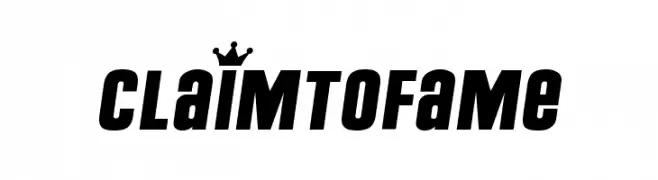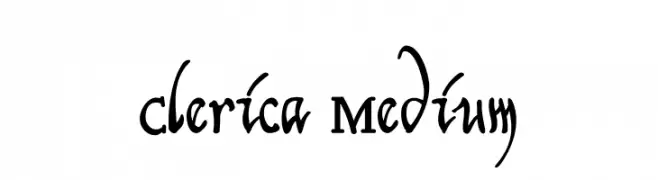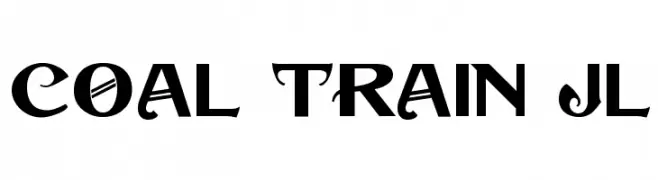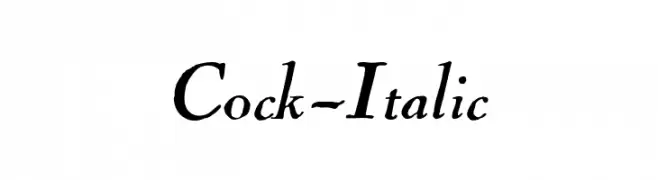
( Fonts by Manfred Klein - manfred-klein.ina-mar.com )
A collection of decorative illustrations inspired by classical art and mythology.
( Paul Lloyd Fonts )
A decorative serif font with calligraphic flourishes and artistic lowercase letters.
Illustrative display font featuring climbers and mountaineering scenes.
( Fonts by Jeff Levine. FREEWARE )
A bold, decorative font with artistic flourishes and playful twists.
A classic serif font with elegant, sharp serifs and a vintage touch.
A bold, classic serif font with thick strokes and elegant curves.
A classic italic serif font with elegant, flowing strokes and moderate contrast.
A bold, geometric font with a digital, pixel-art style.
( Fonts by BC )
A bold, geometric font with a digital, futuristic style.